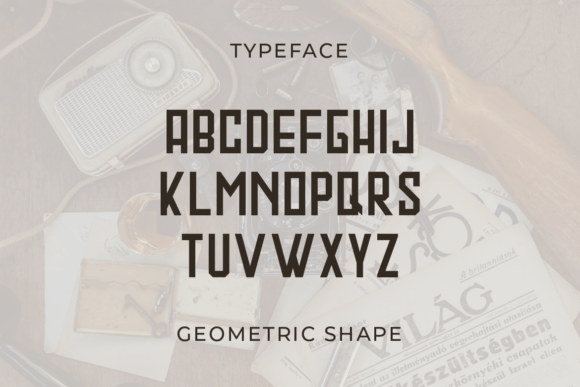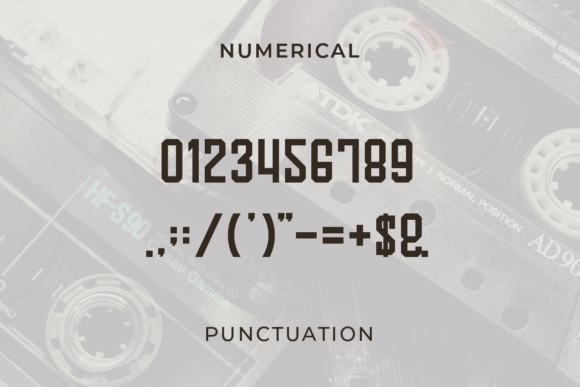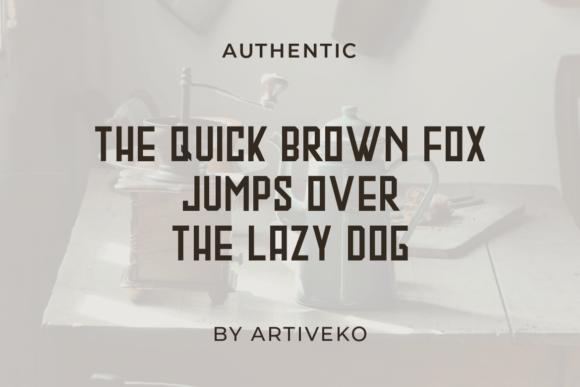
The Power of Baston Font: A Designer’s Best Friend
I still remember the time I was working on a project for a sports brand, and I needed a font that could convey energy, strength, and boldness. I had spent hours browsing through font libraries, but nothing seemed to fit the bill. That was when I stumbled upon Baston Font, a powerful sans serif font that instantly caught my attention. With its thick strokes, tight spacing, and sturdy geometric structure, Baston delivers a strong visual impact that’s perfect for logos, headlines, posters, branding, sports graphics, and packaging that need to make a bold statement.
An Honest Review of Baston Font
- ✨ **Bold and attention-grabbing**: Baston Font is designed to command attention, and it does so with ease. Its thick strokes and sturdy structure make it perfect for headlines, titles, and logos.
- ✅ **Geometric structure**: The font’s geometric structure gives it a modern and sleek look that’s perfect for sports brands, tech companies, and any business that wants to convey strength and stability.
- 💡 **Versatile**: Baston Font can be used for a wide range of design projects, from posters and flyers to packaging and branding.
While Baston Font is an excellent choice for many design projects, it’s not without its limitations. Here are a few things to keep in mind:
- 🤔 **Limited legibility at small sizes**: Due to its thick strokes and tight spacing, Baston Font can be difficult to read at small sizes. It’s best used for headlines, titles, and large text.
- ⚠️ **Not suitable for body text**: While Baston Font is great for headlines and titles, it’s not the best choice for body text. Its boldness and geometric structure can make it difficult to read in large blocks of text.
The Backstory of Baston Font
Baston Font was designed by a team of typographers who wanted to create a font that could convey strength, stability, and modernity. The font’s geometric structure and thick strokes were inspired by traditional sans serif fonts, but with a modern twist. The designers aimed to create a font that could be used for a wide range of design projects, from sports branding to tech startups.
| Font Name | Baston Font |
| Author | Artiveko |
Q: What is Baston Font?
A: Baston Font is a powerful sans serif font that’s designed to command attention. It’s perfect for logos, headlines, posters, branding, sports graphics, and packaging that need to make a bold statement.
Q: What are the best uses for Baston Font?
A: Baston Font is best used for headlines, titles, logos, and large text. It’s not suitable for body text or small font sizes.
Q: Is Baston Font available in different weights and styles?
A: Yes, Baston Font is available in different weights and styles, including bold, regular, and italic.